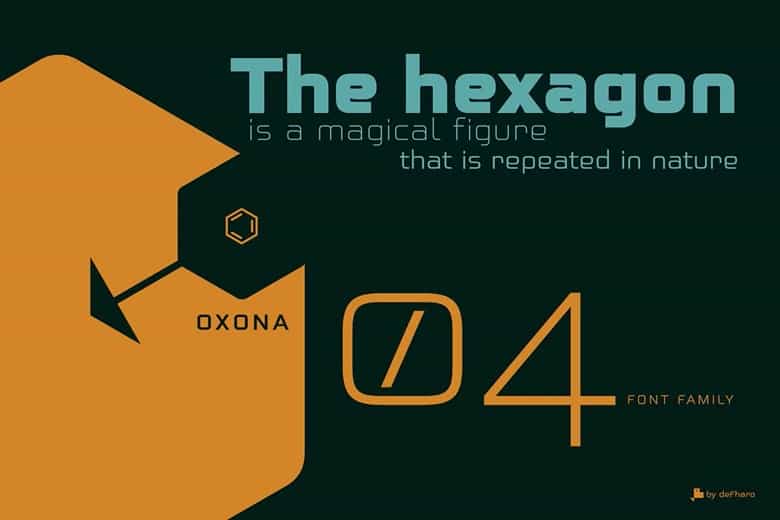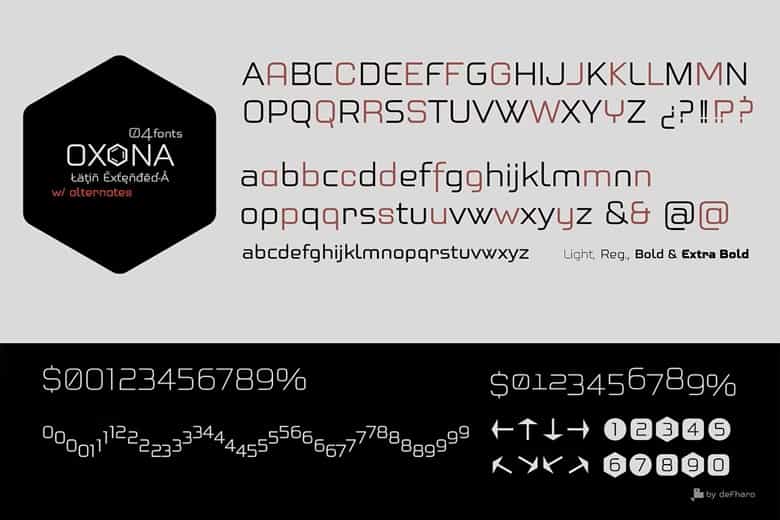
Oxona is a new sans serif font family with 4 different weights, whose calculated proportions are meant to enhance both reading and visual appeal. Every curve, stroke and angle has been worked on carefully so the face has the best balance between being readable and attractive, thanks to its clean, modern design, rationally organized structure and careful optical adjustments.